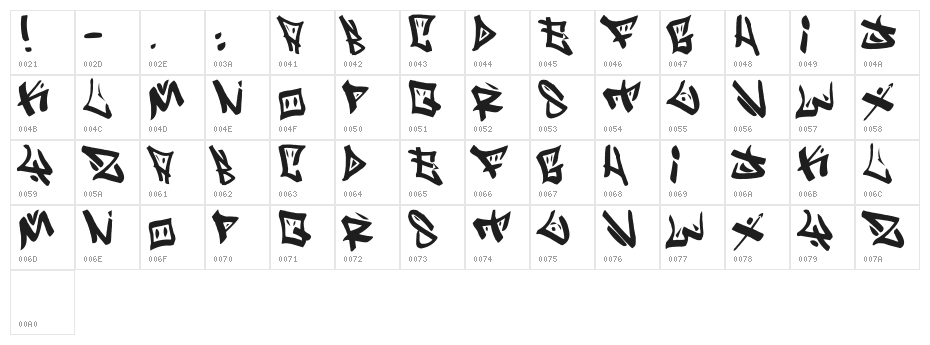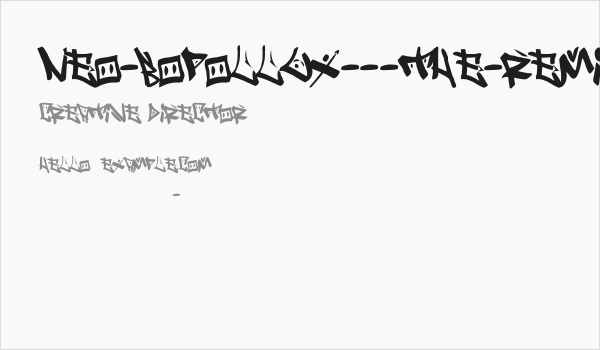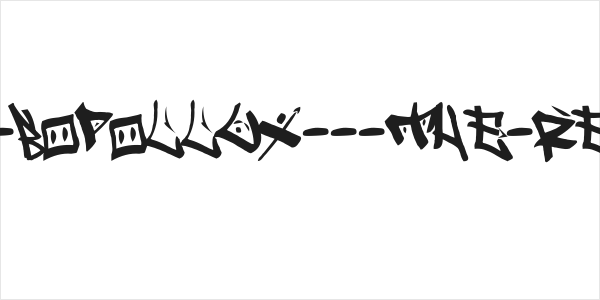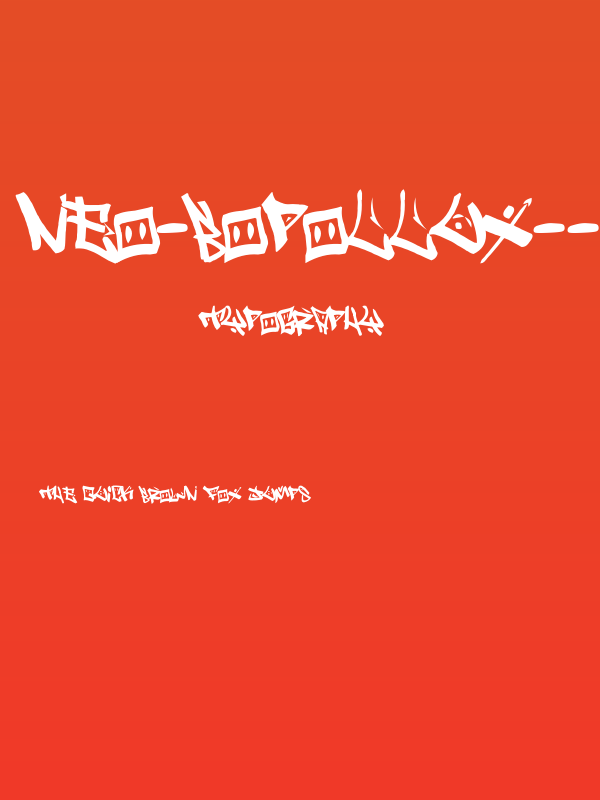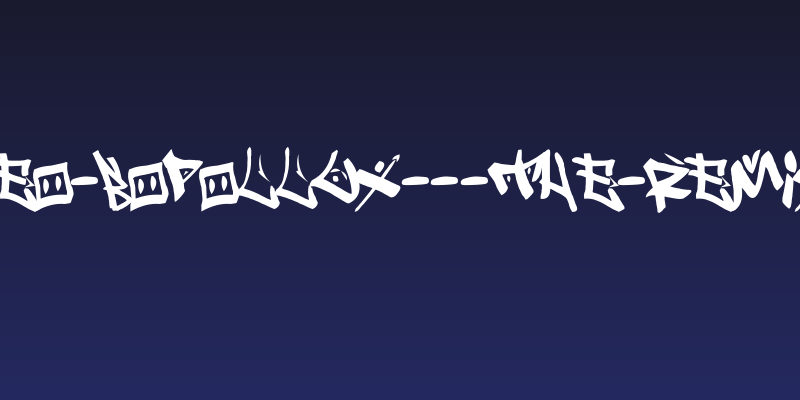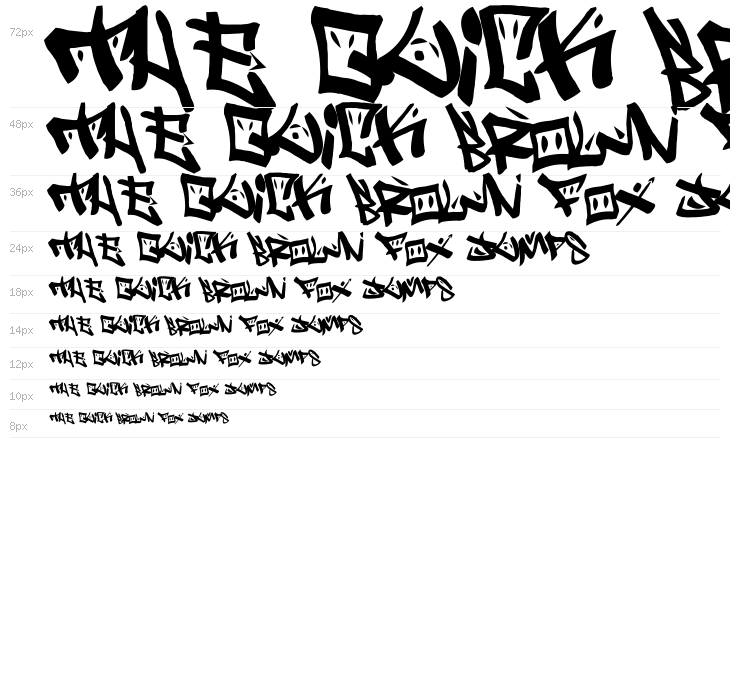
Neo-Bopollux---The-Remix Font
Neo-Bopollux---The-Remix Description
This font exhibits a bold, graffiti-inspired style with highly stylized and angular letterforms. Each character is uniquely crafted with exaggerated curves and sharp edges, creating a dynamic and energetic appearance. The uppercase and lowercase letters maintain a consistent theme, with a playful yet edgy aesthetic. The font's design is reminiscent of street art, with an urban and rebellious vibe. The characters are tightly spaced, enhancing the compact and impactful look. This font is ideal for projects that require a strong visual statement and a modern, unconventional feel.
| Overall Style | Modern, Urban |
| Proposed Projects | Perfect for street art designs, music album covers, urban-themed posters, and edgy branding. |